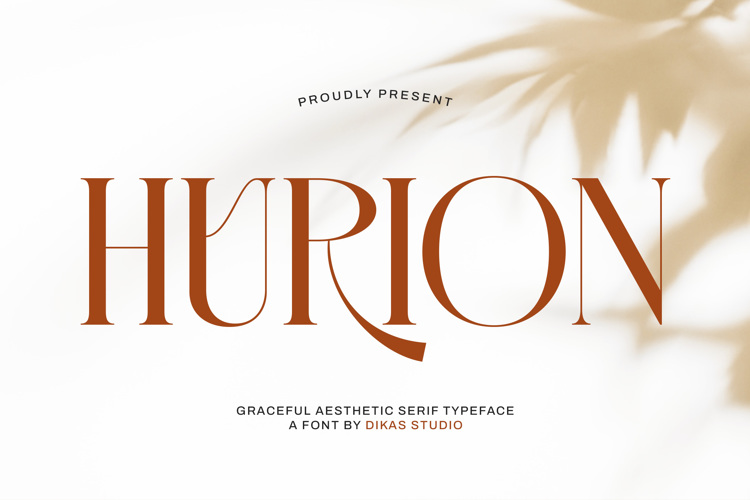
Hurion - Font
Introducing Hurion – a graceful aesthetic serif font designed with an aura of elegance, aesthetics, and luxury. Every detail in its refined strokes and balanced proportions makes Hurion the perfect companion for creating designs that radiate sophistication.